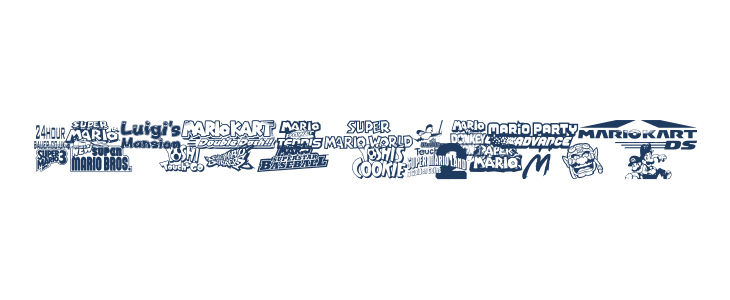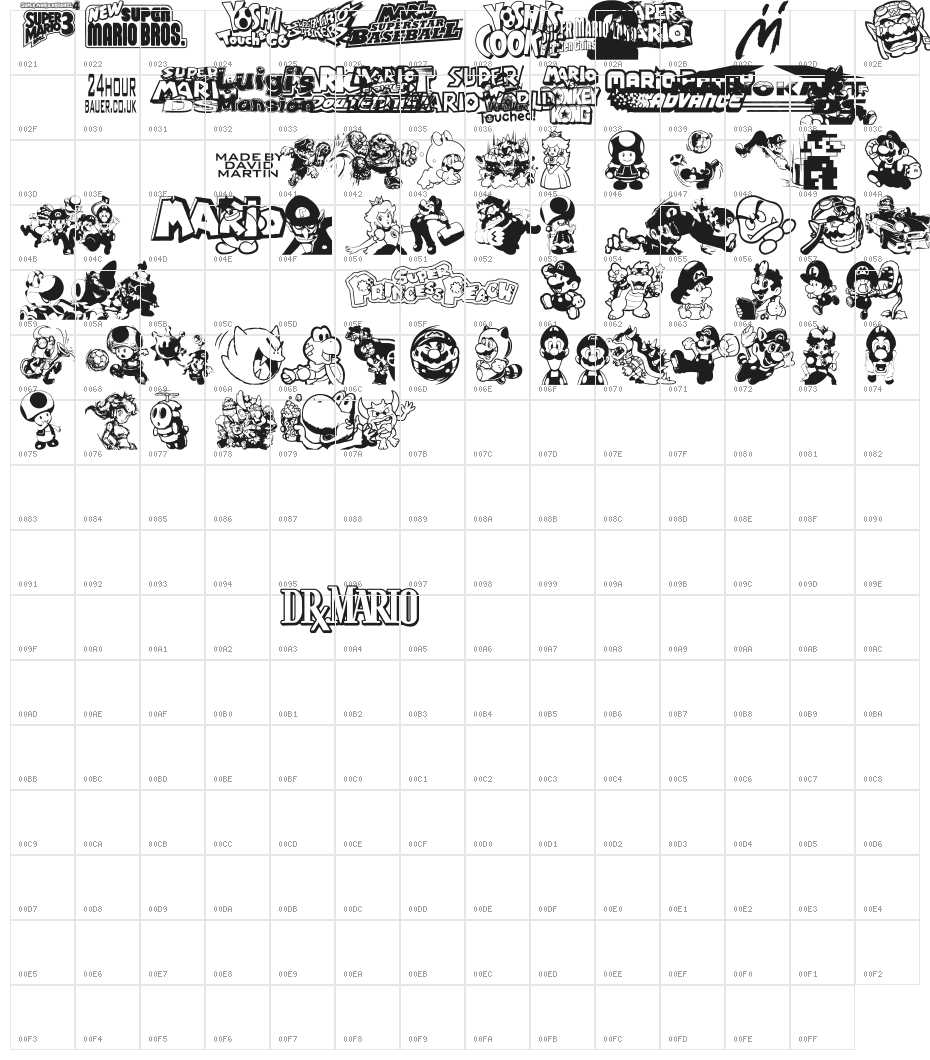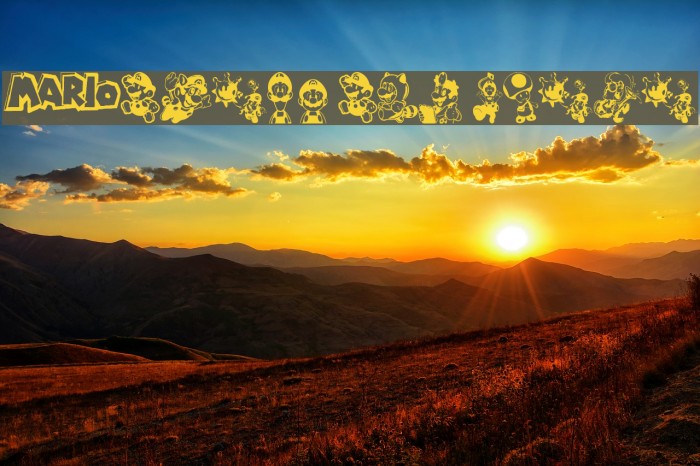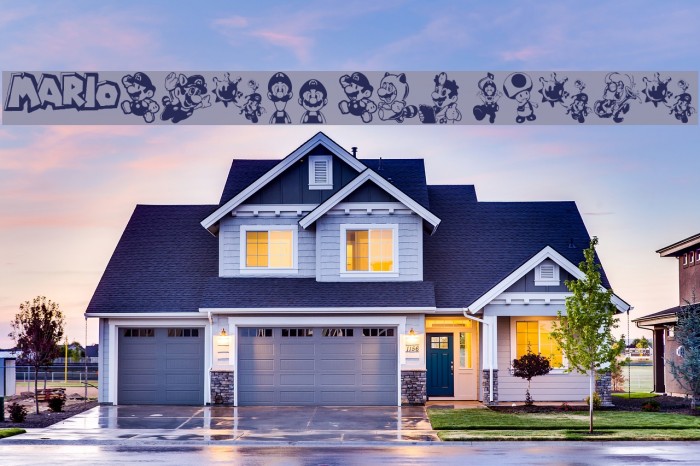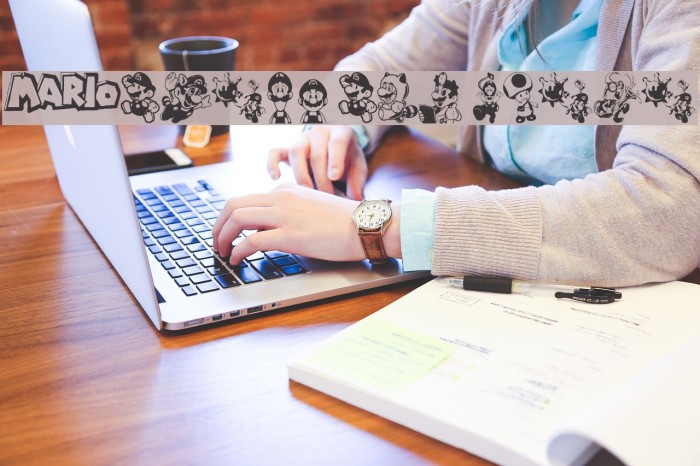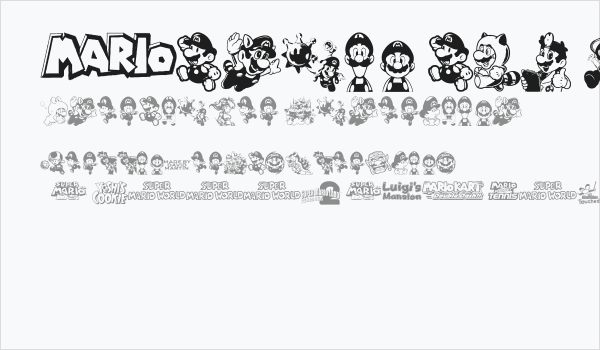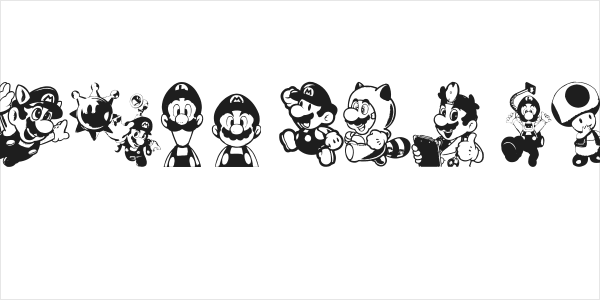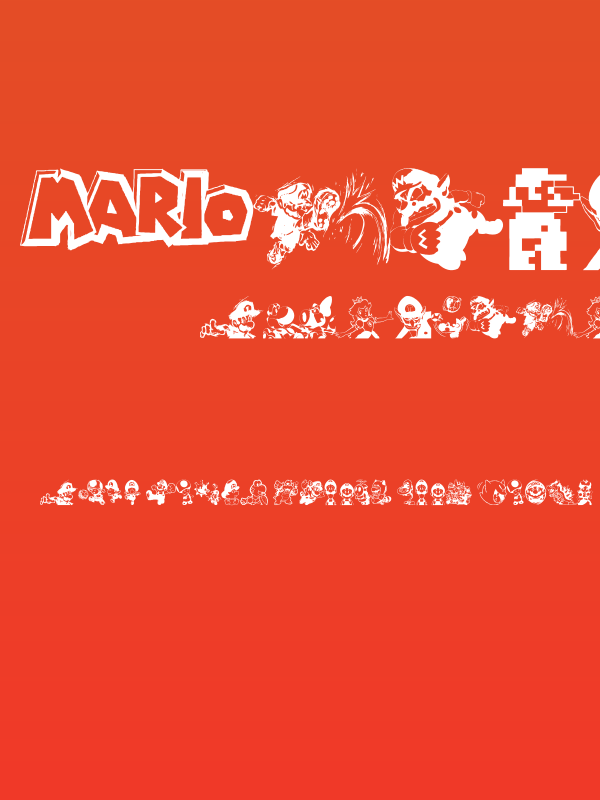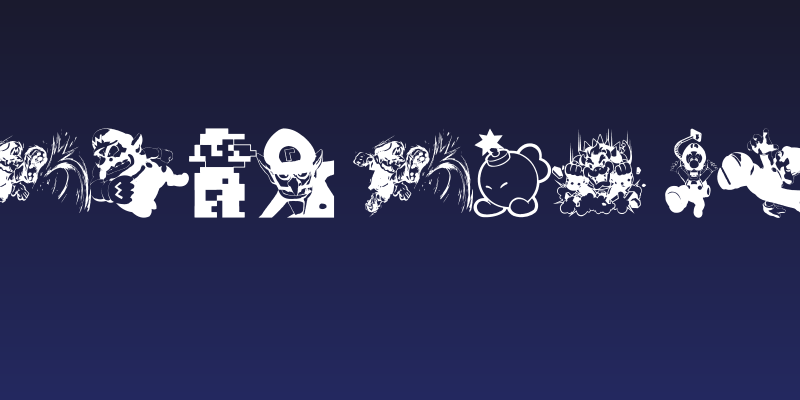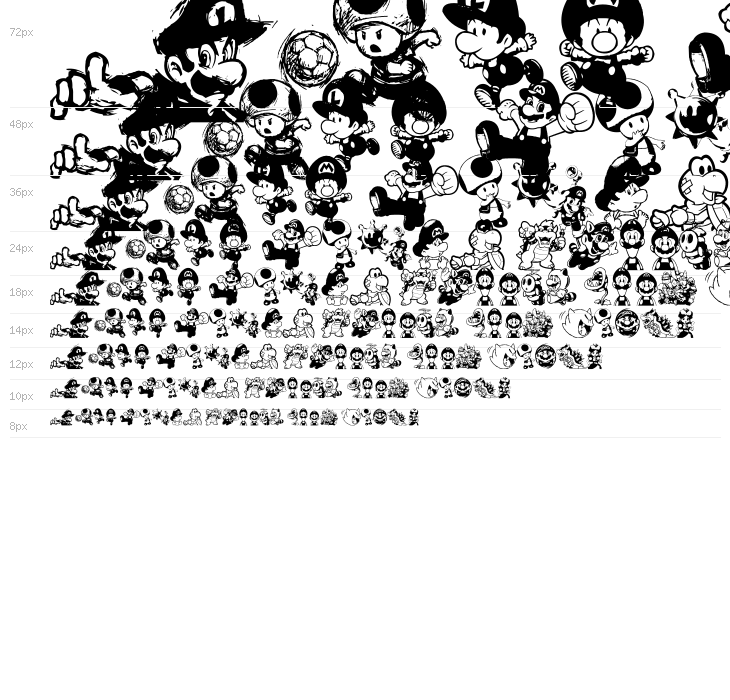
Mario and Luigi Font
Mario and Luigi Description
This is not a valid font. The image contains various characters and logos from the Mario and Luigi video game series. It features iconic characters and elements from the franchise, showcasing a playful and nostalgic style. The designs are detailed and vibrant, capturing the essence of the beloved games.
| Overall Style | Playful, Nostalgic |
| Use Case | Merchandise, Fan Art |
| Proposed Projects | This style is suitable for video game merchandise, fan art, and themed events. |